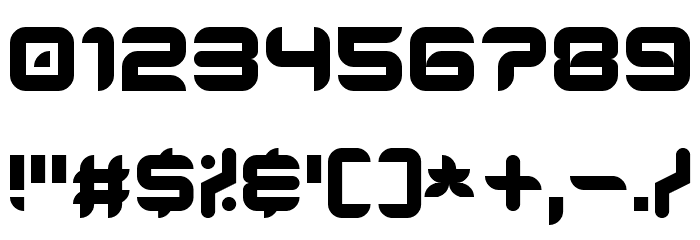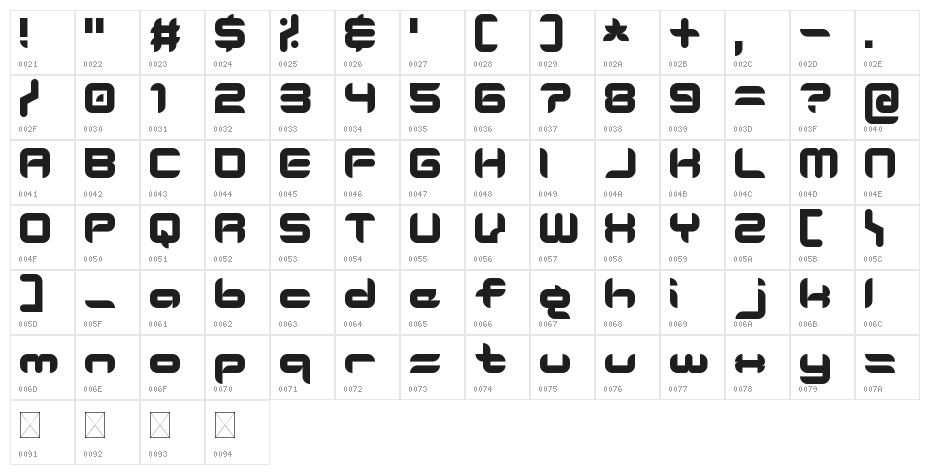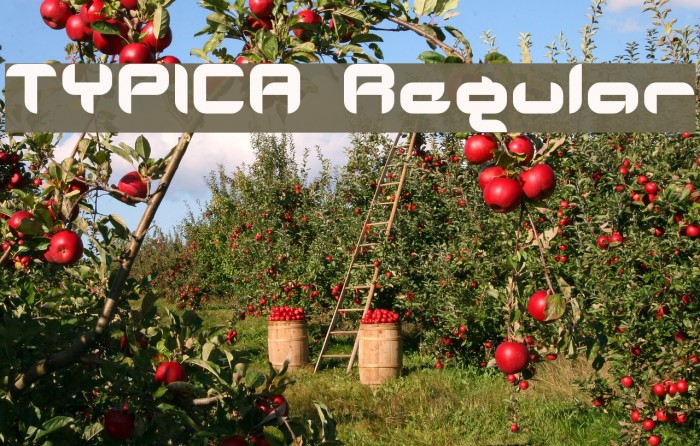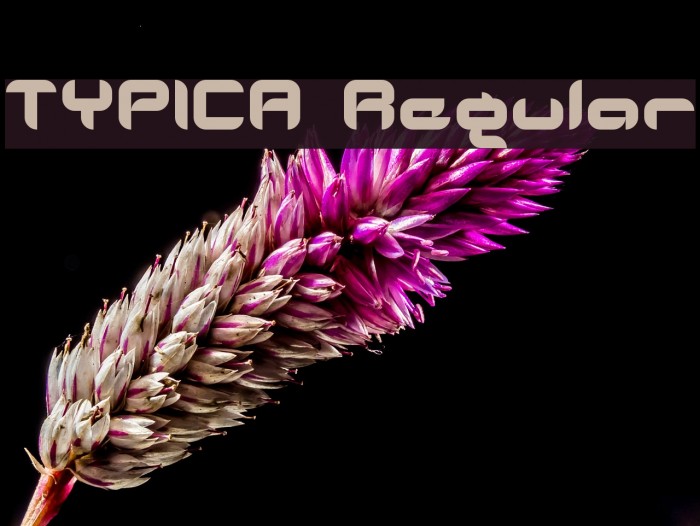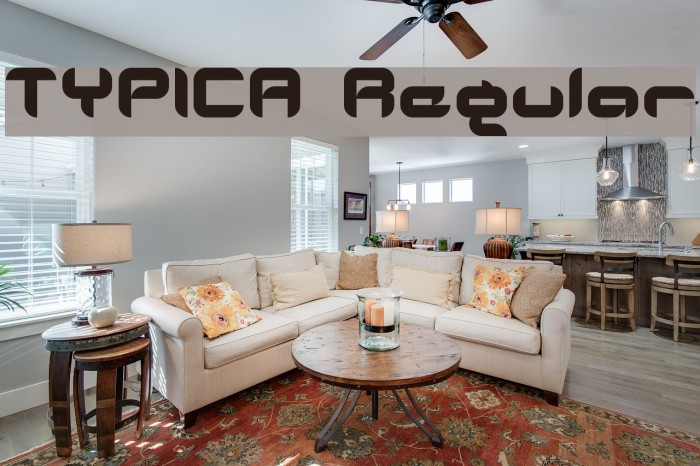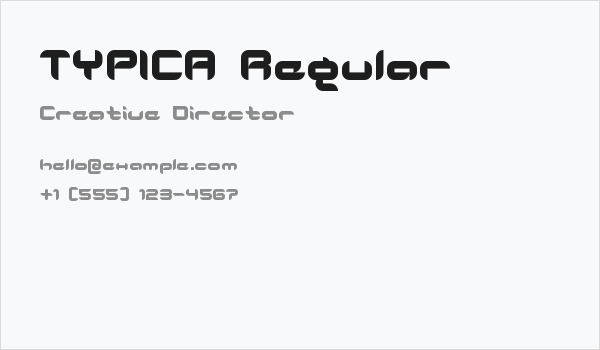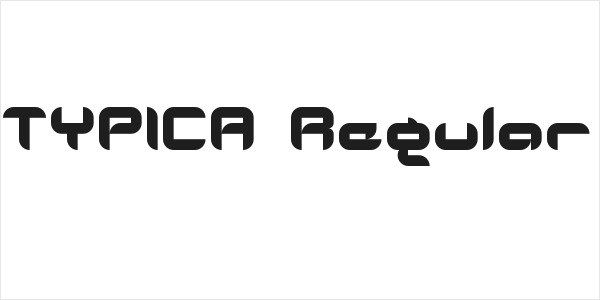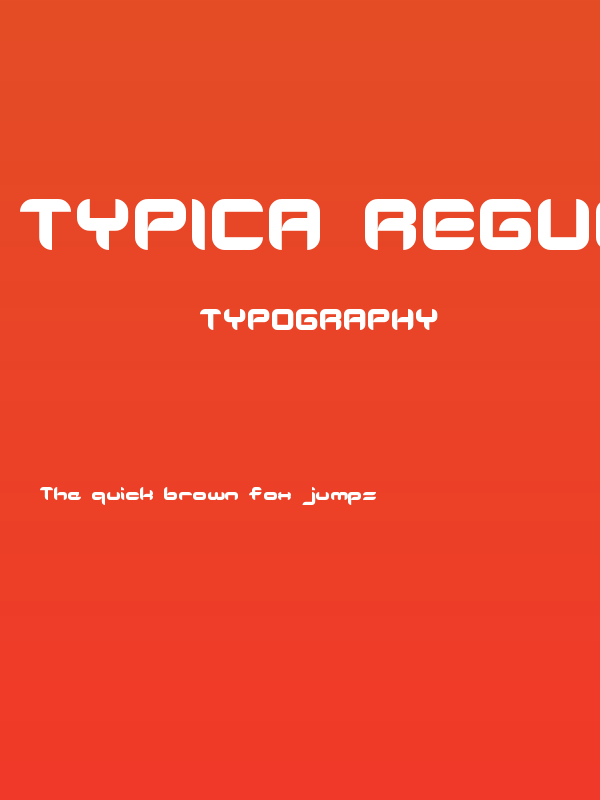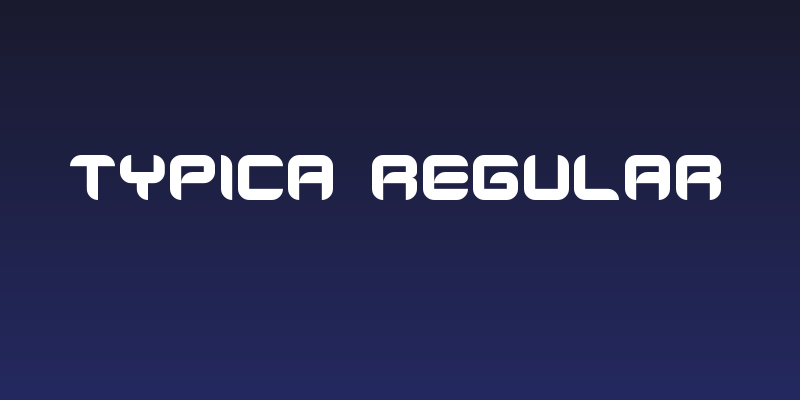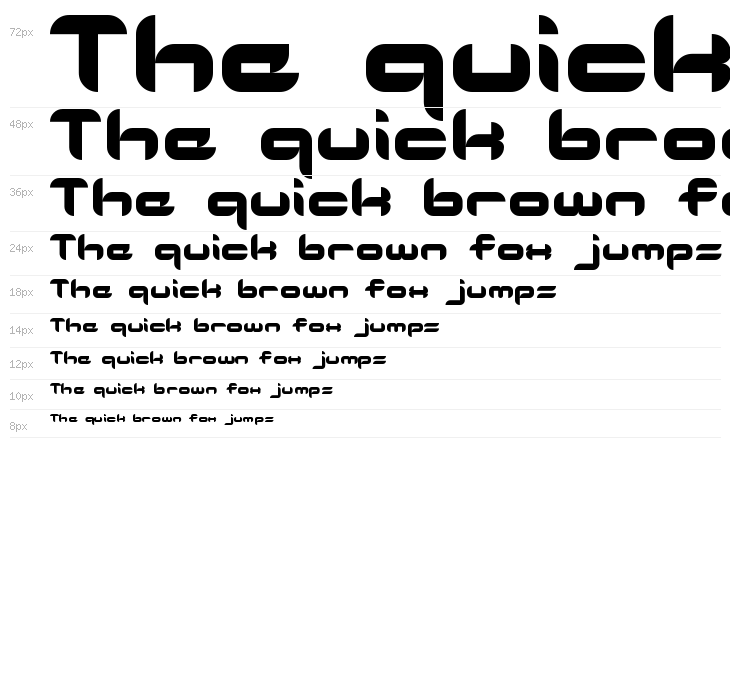
TYPICA Regular Font
TYPICA Regular Description
This font features a bold, futuristic design with rounded edges and a geometric structure. The characters are uniform in width, giving it a monospaced appearance, although it is not strictly monospaced. The uppercase letters are distinct with a strong presence, while the lowercase letters maintain the same boldness with a slightly softer touch. The numbers and special characters follow the same design principles, ensuring consistency across all glyphs. This font is highly legible and makes a strong visual impact, suitable for modern and tech-oriented designs.